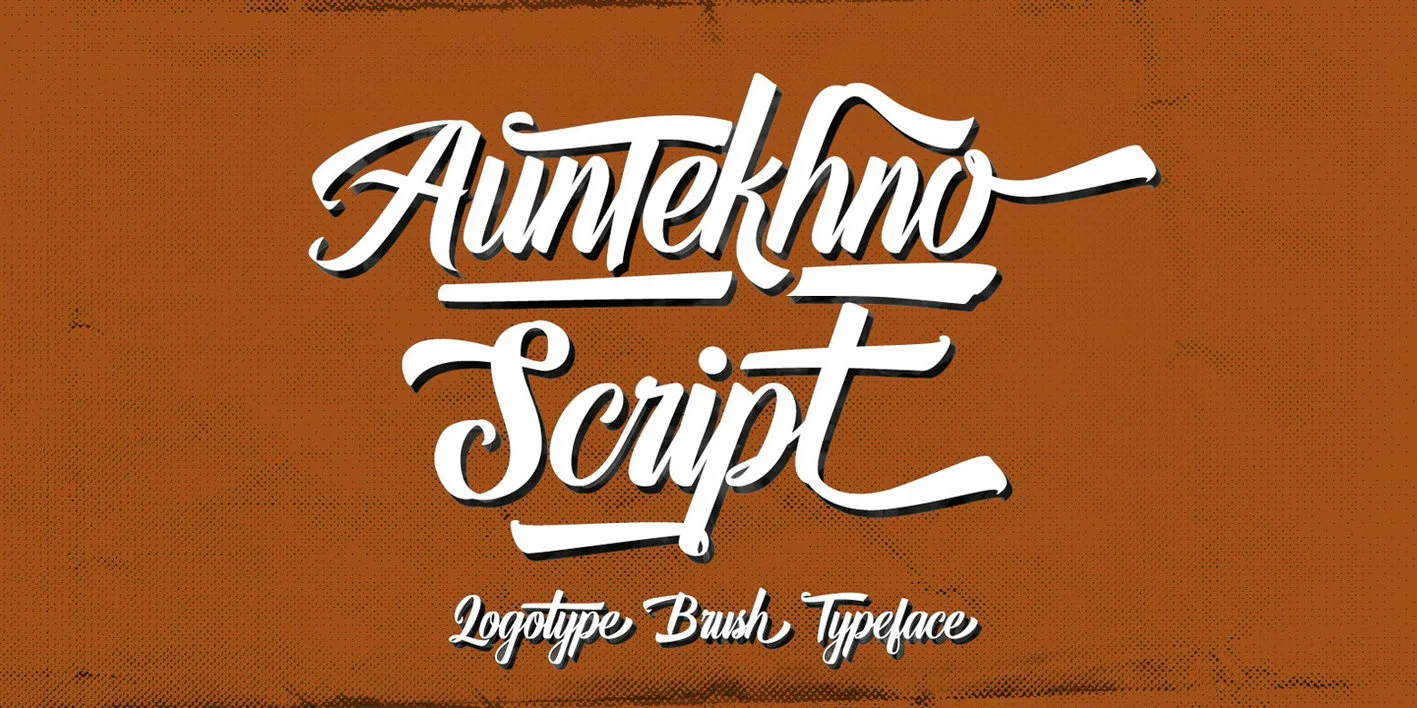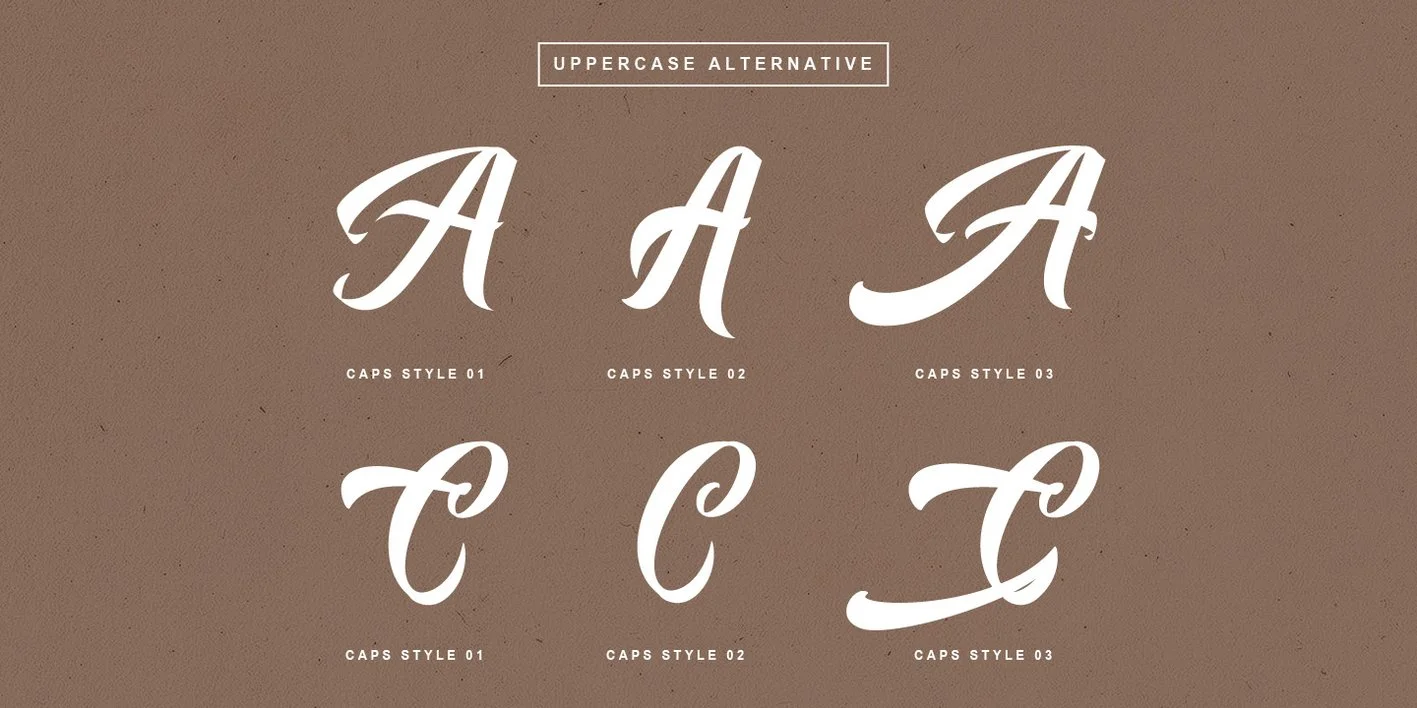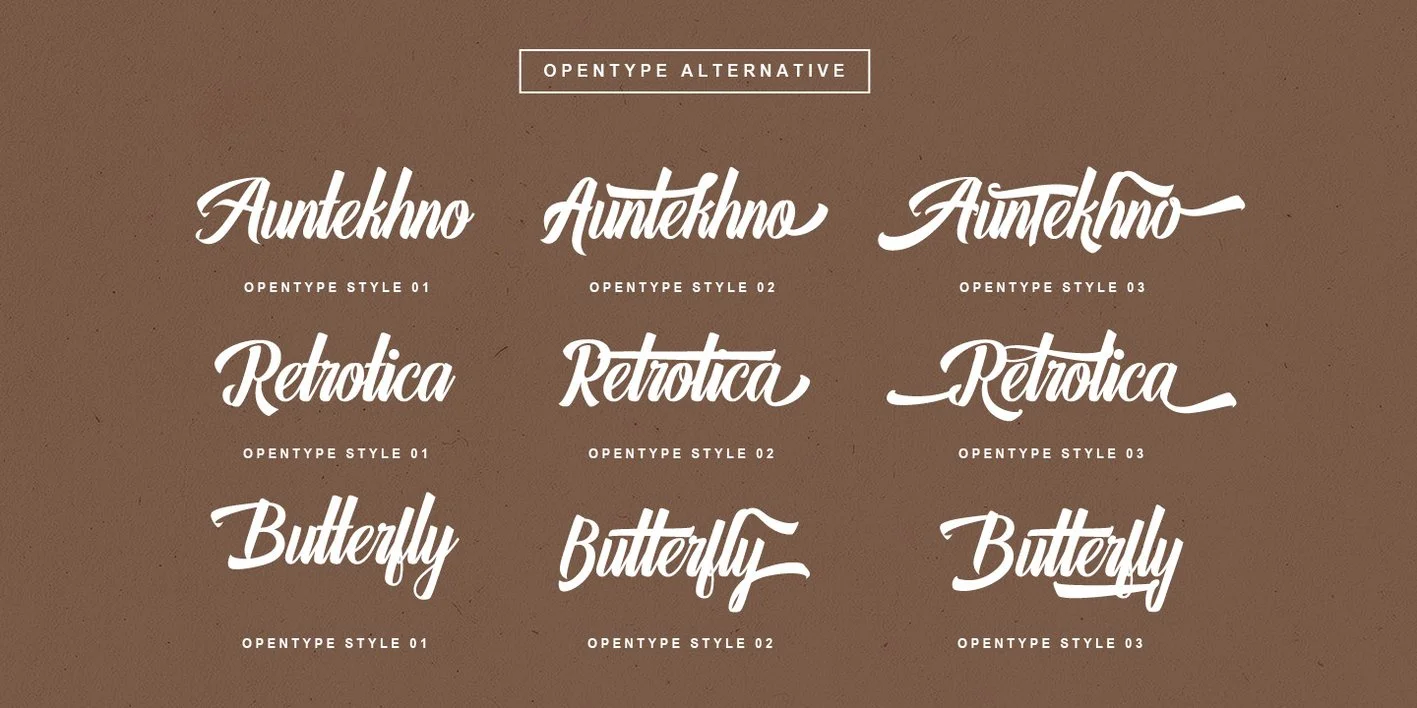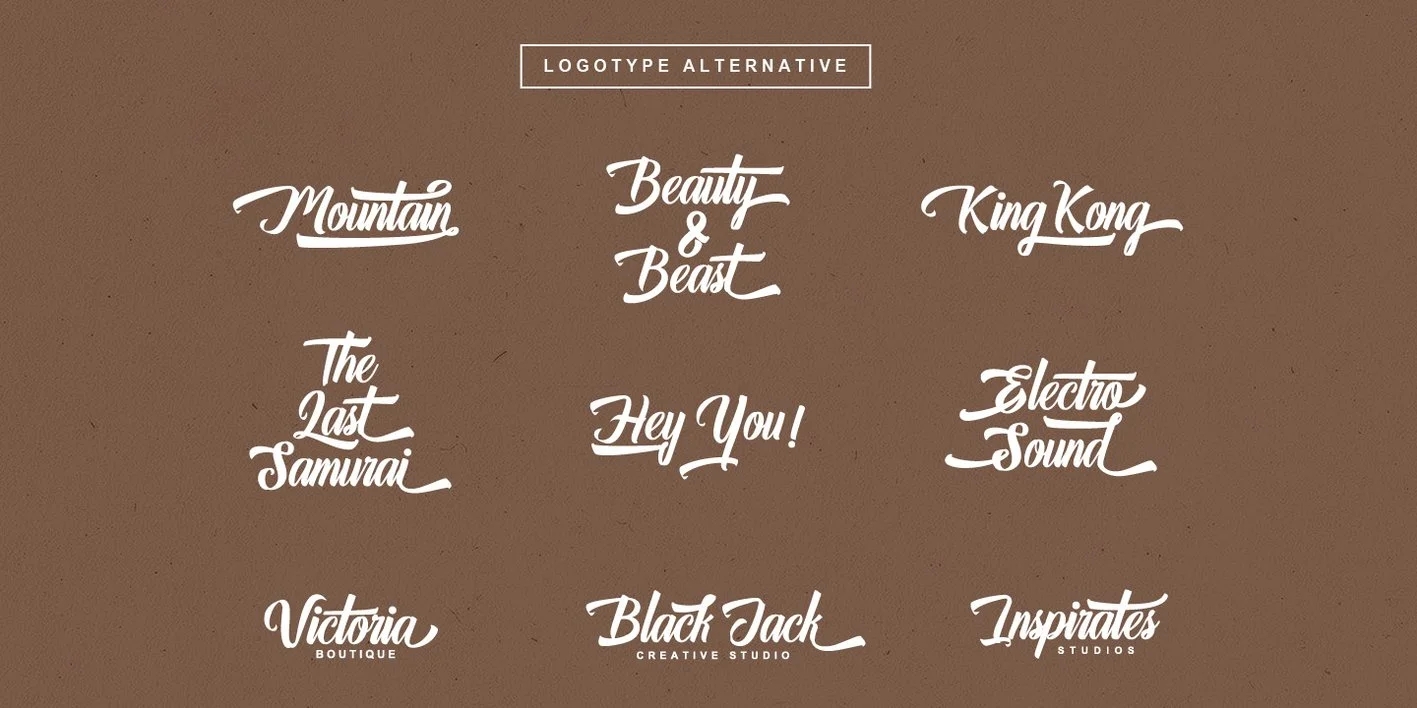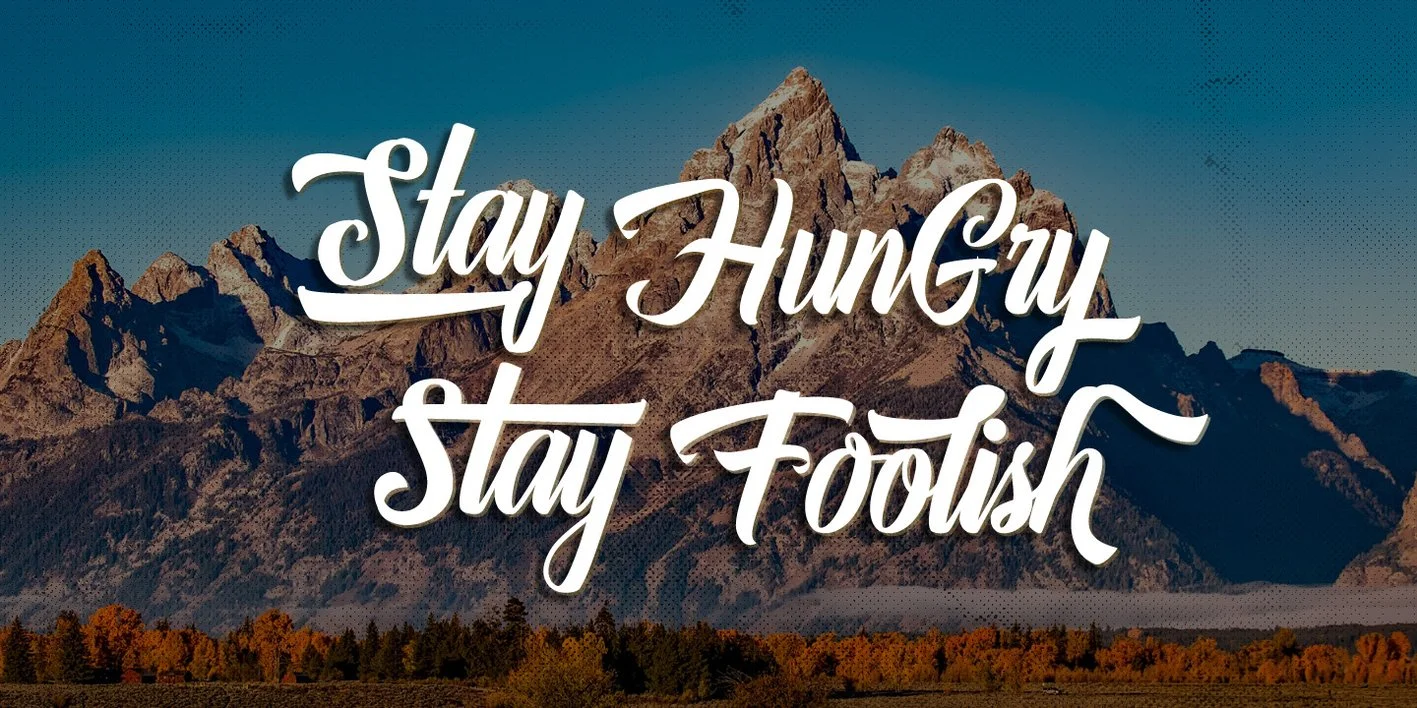
Auntekhno Script Font
A good typeface communicates tone before a single word is read. Auntekhno Script achieves this through optical balance across all weights. The typeface brings an elegant, calligraphic sensibility to a broad range of creative disciplines, with distinctive character without sacrificing readability that holds up whether the work is print-first or screen-first.
In practice, Auntekhno Script proves particularly effective for feminine branding, wedding invitations, event signage, fashion editorials, product labels. Designers reaching for it find that the type decisions feel resolved rather than laboured — a useful quality when client timelines are tight.
The range of applications extends to perfume labels, high-end cosmetic packaging, web design, boutique logos. That breadth is deliberate: the proportions and spacing were stress-tested across a wide range of mock briefs before the typeface was finalised.
Auntekhno Script sits comfortably alongside both classic and contemporary typefaces in multi-font hierarchies. It takes direction rather than competing for attention — a quality that experienced designers know is harder to find than it appears.
Motion designers building title sequences and lower thirds find Auntekhno Script a reliable choice for projects that demand both personality and restraint. The design avoids the self-conscious quirkiness that dates quickly, settling instead for considered distinctiveness that holds up over time.